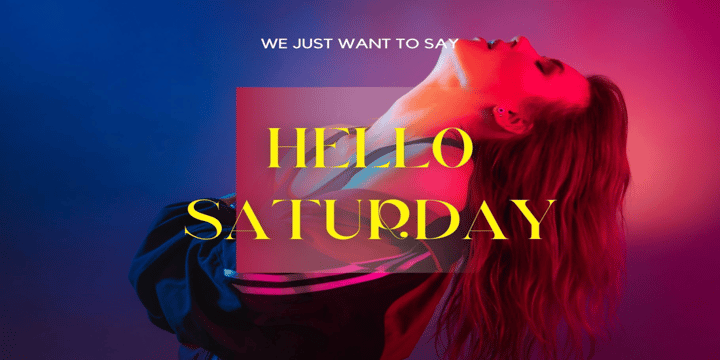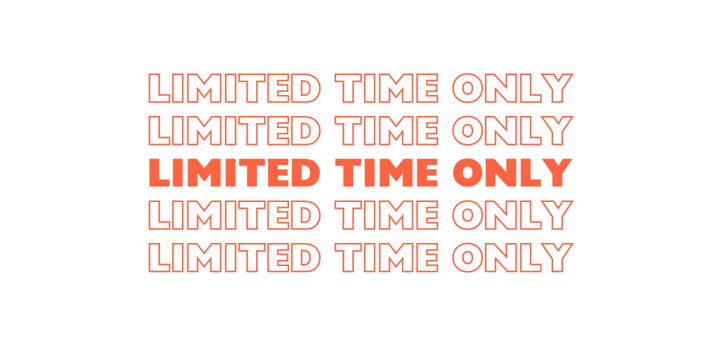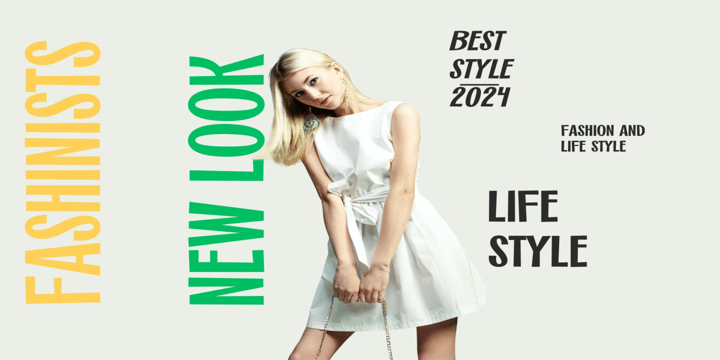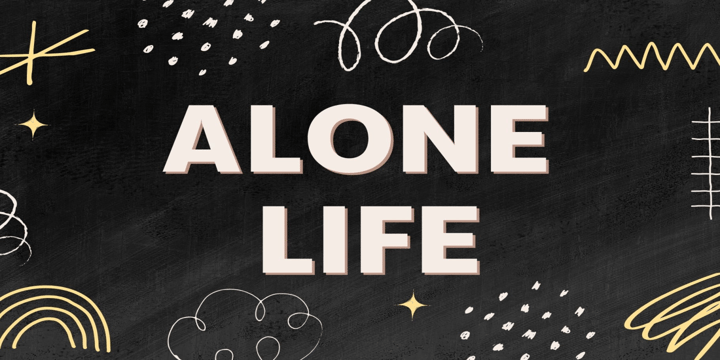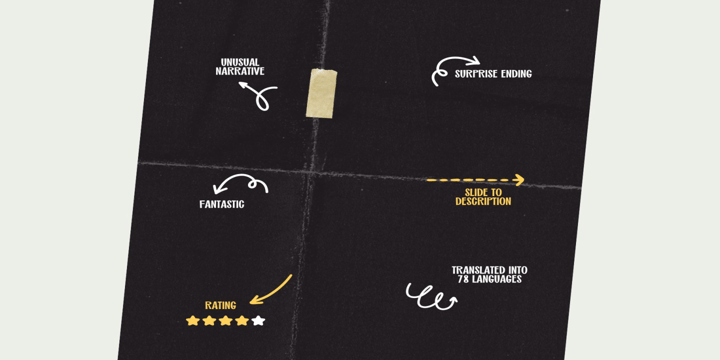
Summer Font Bundle
The Summer Font Bundle will perfect for many project: postcard, fashion, invitations, music cover, game poster, cinema, book, magazines, logo, branding, photography, wedding invitations, quotes, blog header, poster, advertisements, etc